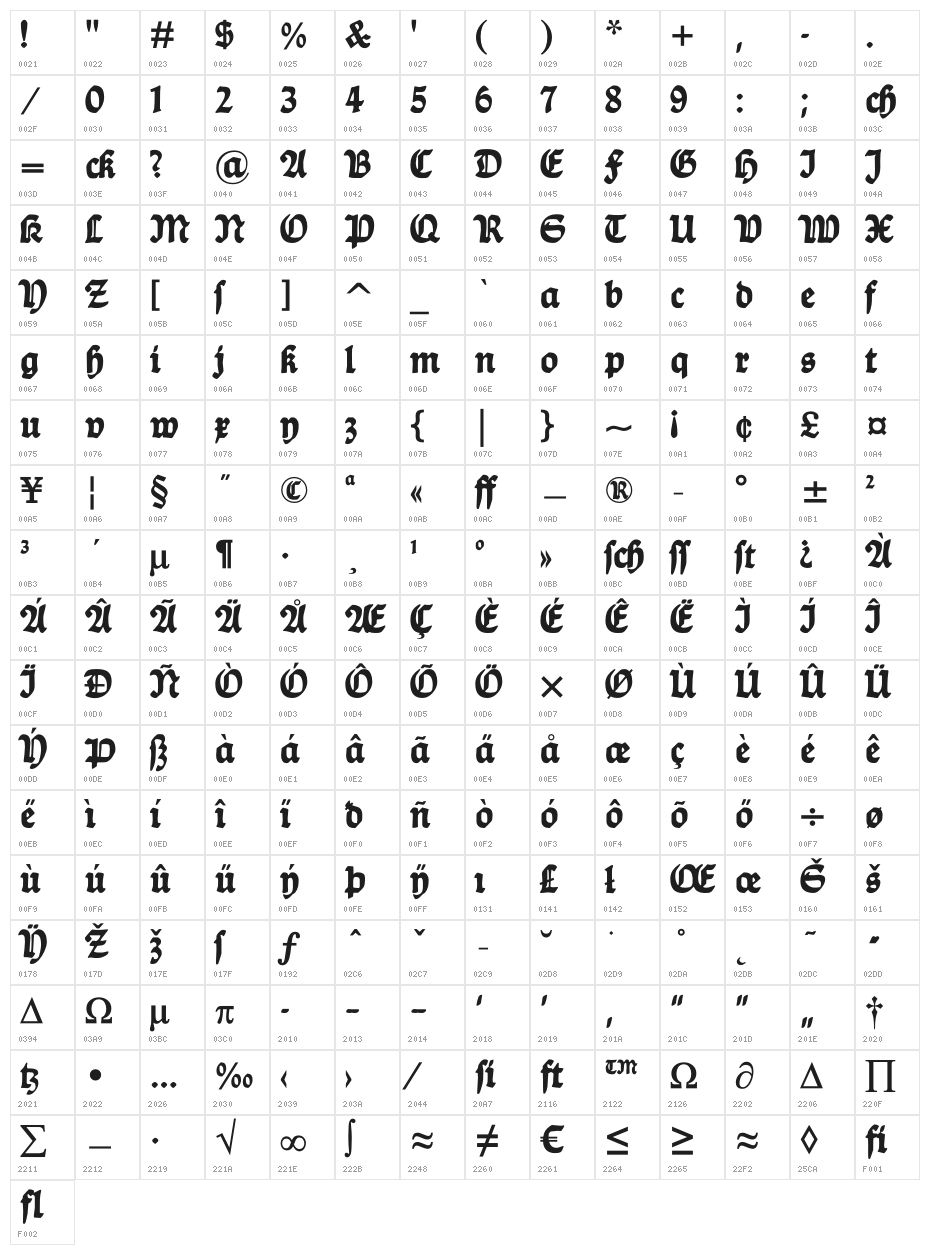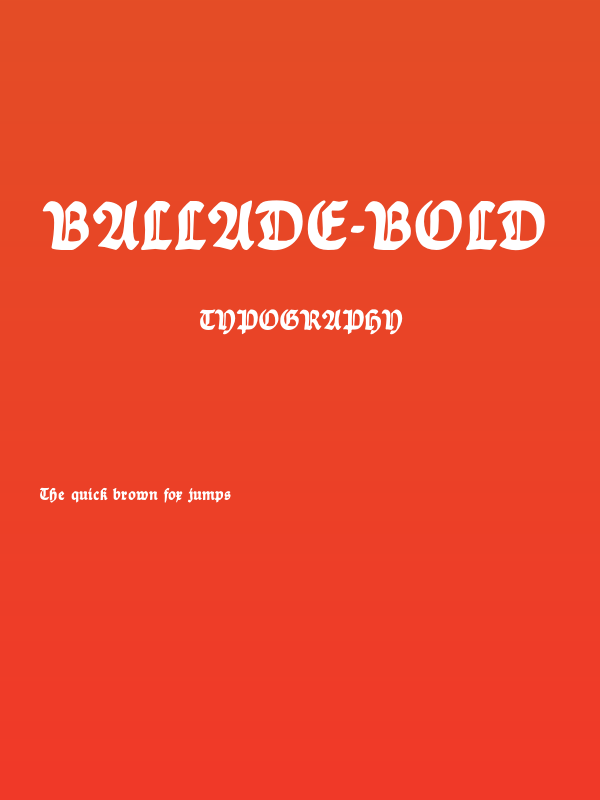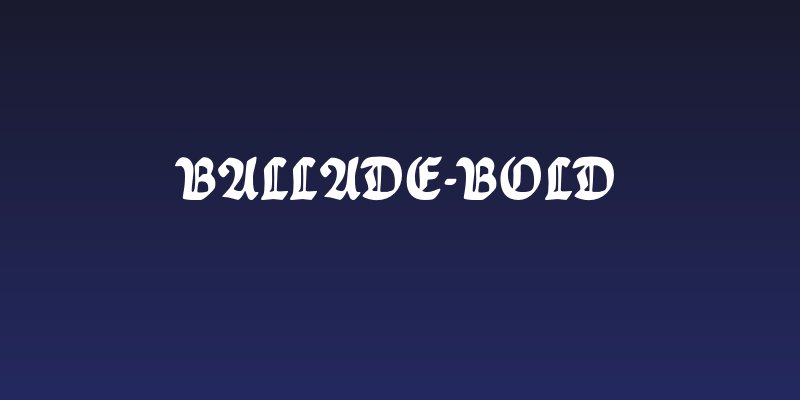
Ballade-Bold Font
Ballade-Bold Description
This font features a bold, blackletter style with strong, angular strokes and intricate detailing. The uppercase letters exhibit a traditional Gothic influence, characterized by sharp serifs and a medieval aesthetic. Lowercase letters maintain the same stylistic elements, ensuring consistency throughout the typeface. The numerals are equally bold and maintain the decorative flair of the alphabet. Special characters are designed to complement the overall style, making them suitable for a variety of decorative applications. The font's dramatic appearance makes it ideal for projects requiring a historical or formal touch.
| Use Case | Headlines, Logos, Decorative text |
| Proposed Projects | Ideal for historical documents, formal invitations, branding for luxury products, or any project requiring a classic, medieval aesthetic. |